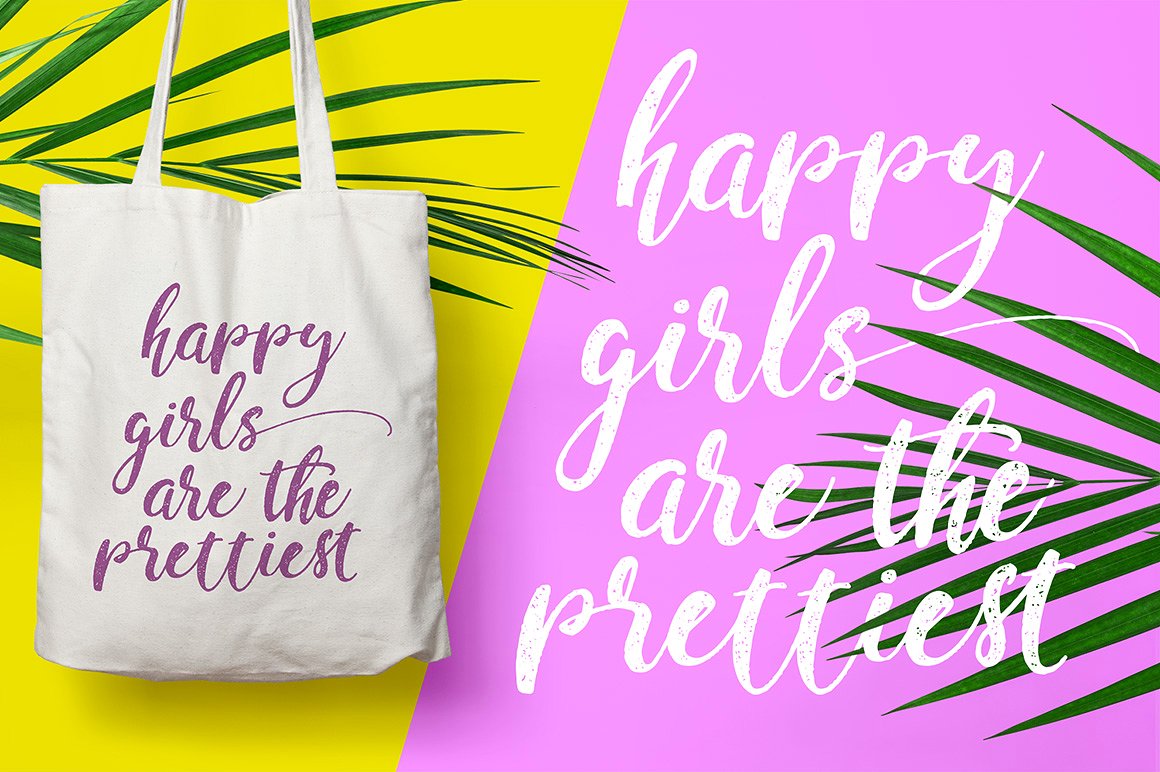
Perfume Classic Script Font
lntroducing Perfume Classic Script Font! Say Hi to gorgeous rustic brush script family font Perfume. Perfume is amazing lettering font. With lettering script style this font will perfect for many different project ex: quotes, blog header, poster, wedding, branding, logo, fashion, apparel, letter, invitation, stationery, etc.